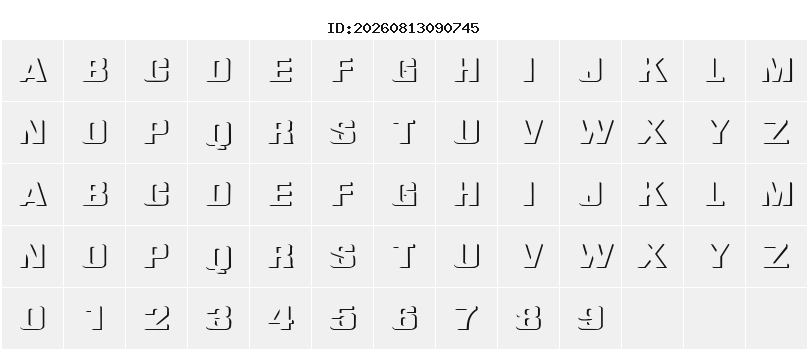
Relief Grotesk Extended Preview
• Font Name: Relief Grotesk Extended
• Full Font Name: Relief Grotesk Extended
• Designer: Typographer Mediengestaltung
About Relief Grotesk Extended.ttf
Relief Grotesk Extended.ttf is a modern, elegant sans-serif font designed for ultimate readability and visual harmony. Perfect for branding, headlines, web design, and print materials.